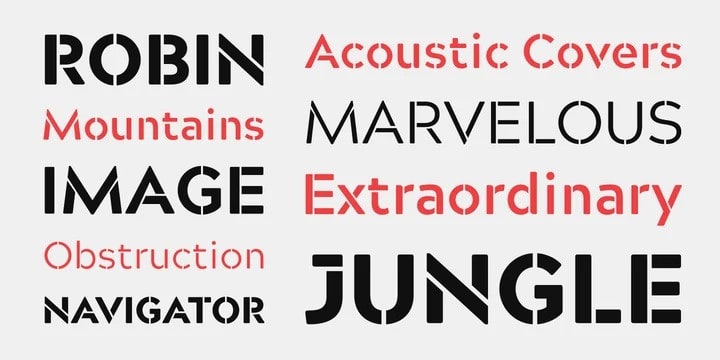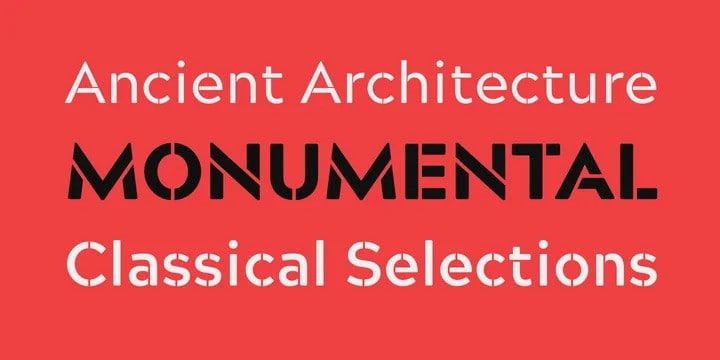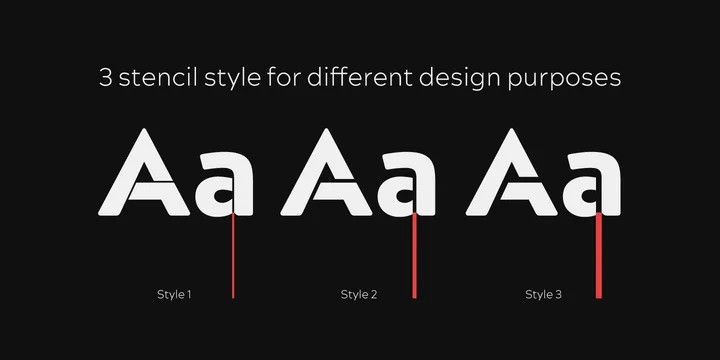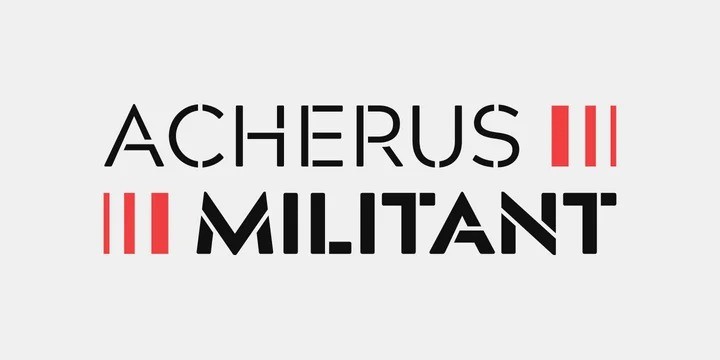
Acherus Militant Sans Serif Font Demo
Acherus Militant Font is a new font for design of minimalistic logos. Made from font designer named Horizon Type. It offers rich solutions to your creative projects with its alternative versions. The font is suitable for creating word marks, titles, taglines. This font is perfect for those of you who like a minimalist and clean design.